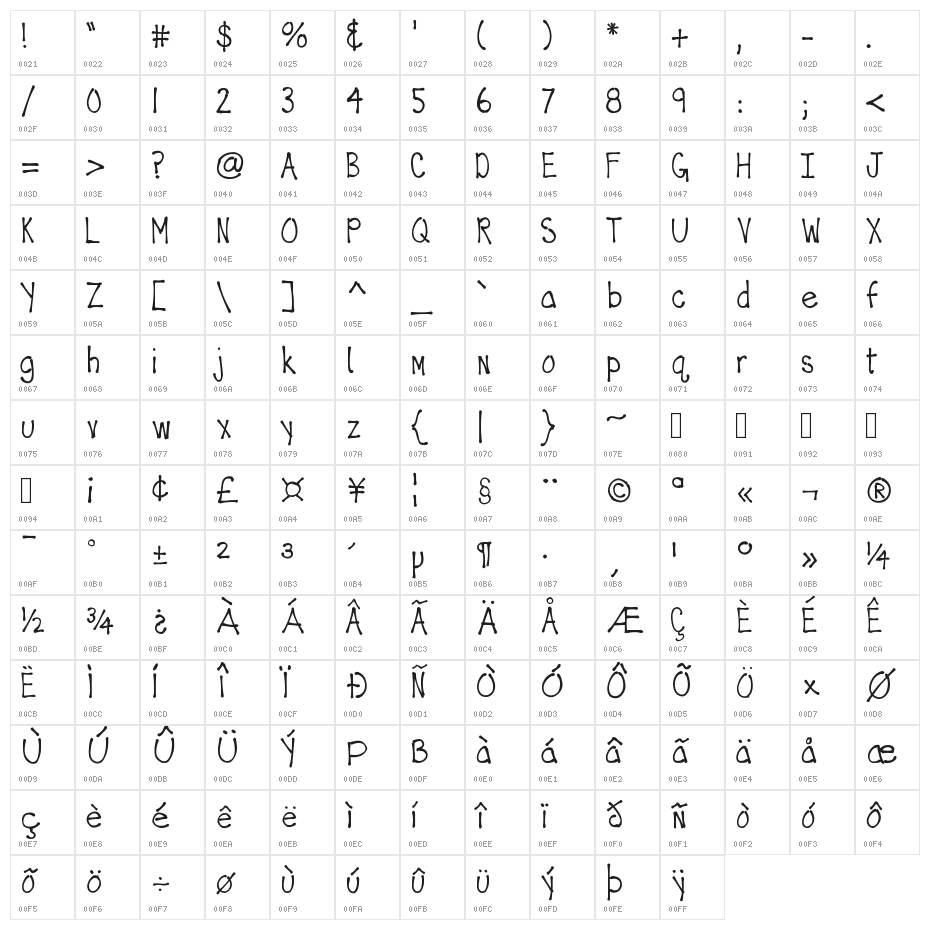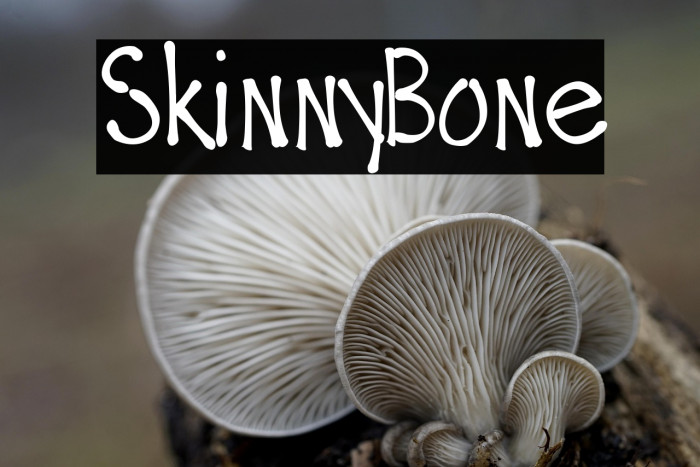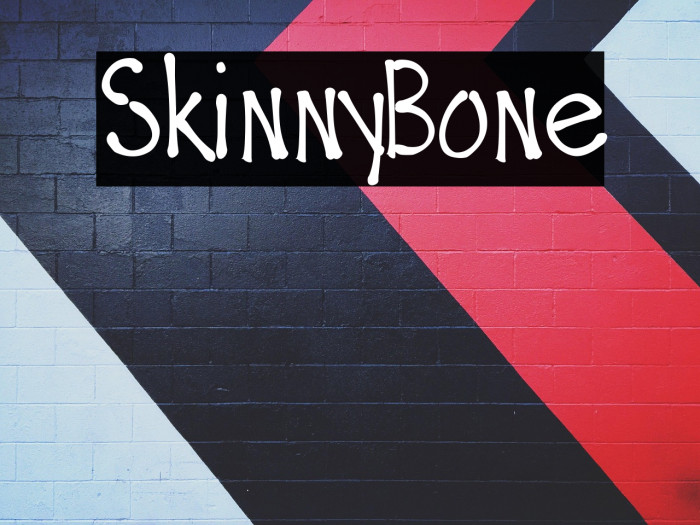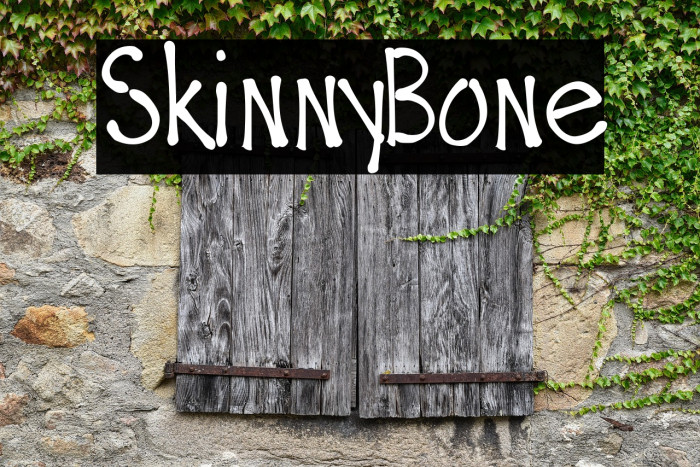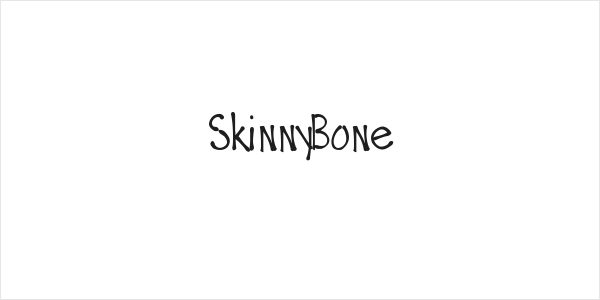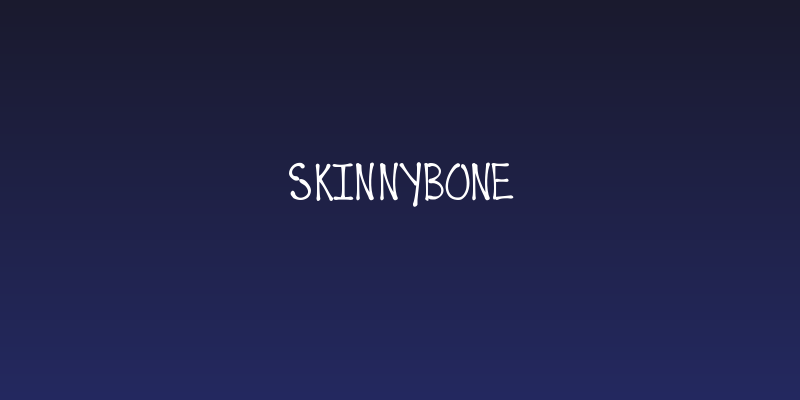
SkinnyBone Font
SkinnyBone Description
This font features a playful and whimsical handwritten style, characterized by its thin, uneven strokes and casual appearance. The letters are slightly irregular, giving it a charming, informal look that feels both approachable and friendly. The uppercase and lowercase letters maintain a consistent style, with rounded edges and a slight tilt that adds to its quirky personality. Numbers and special characters follow the same playful design, making it versatile for various creative projects. The overall appearance is light and airy, perfect for conveying a sense of fun and creativity.
| Overall Style | Whimsical |
| Use Case | Headlines, Logos, Casual Text |
| Proposed Projects | Ideal for children's books, greeting cards, playful branding, and casual invitations. |